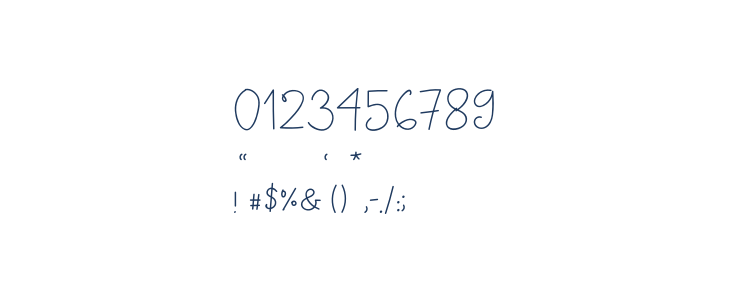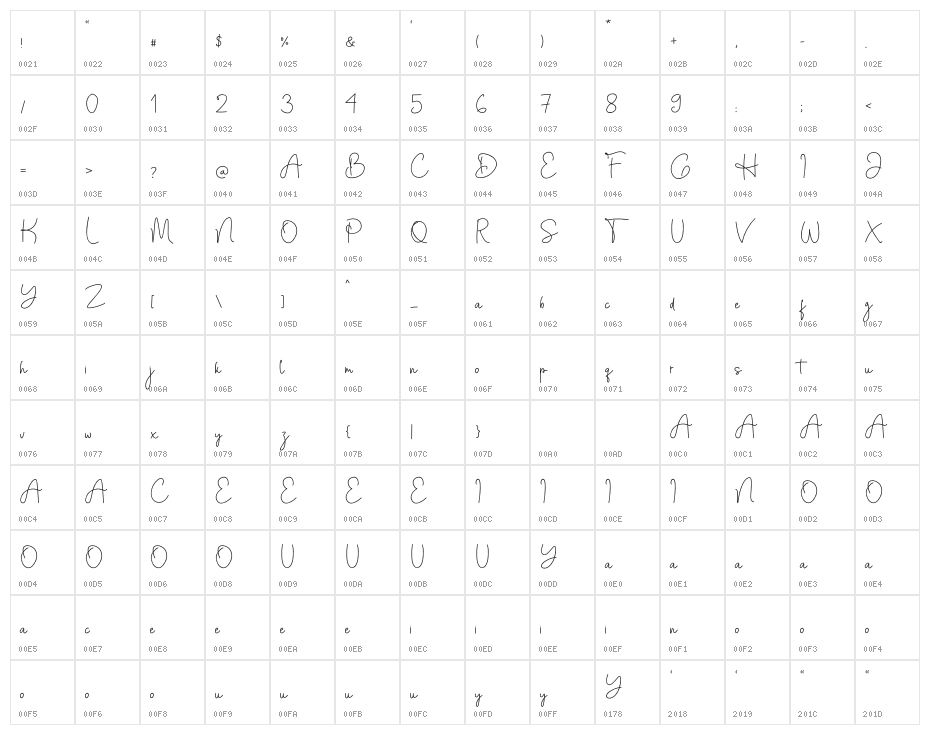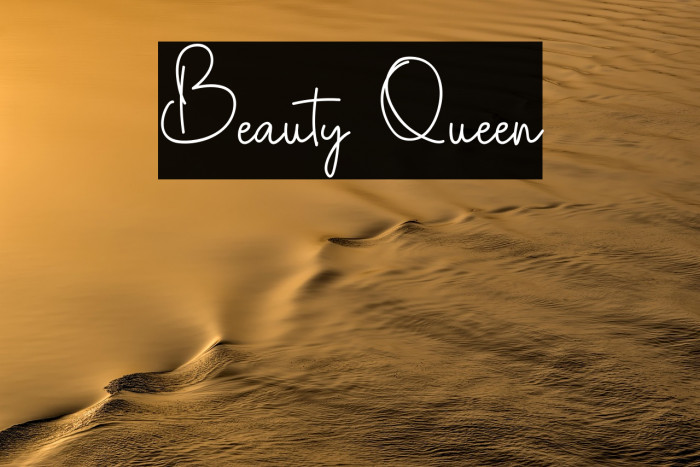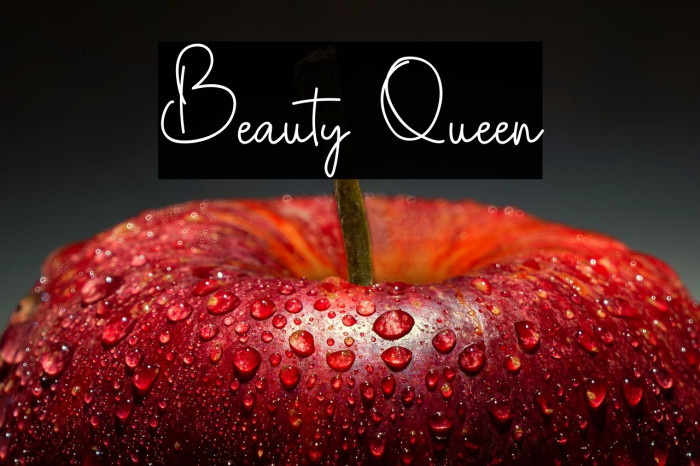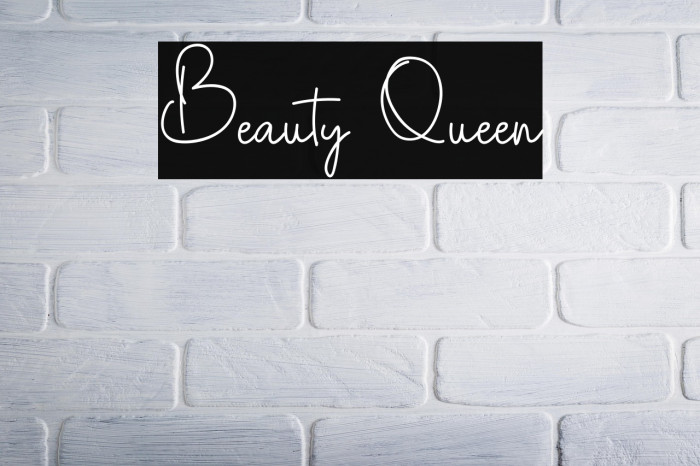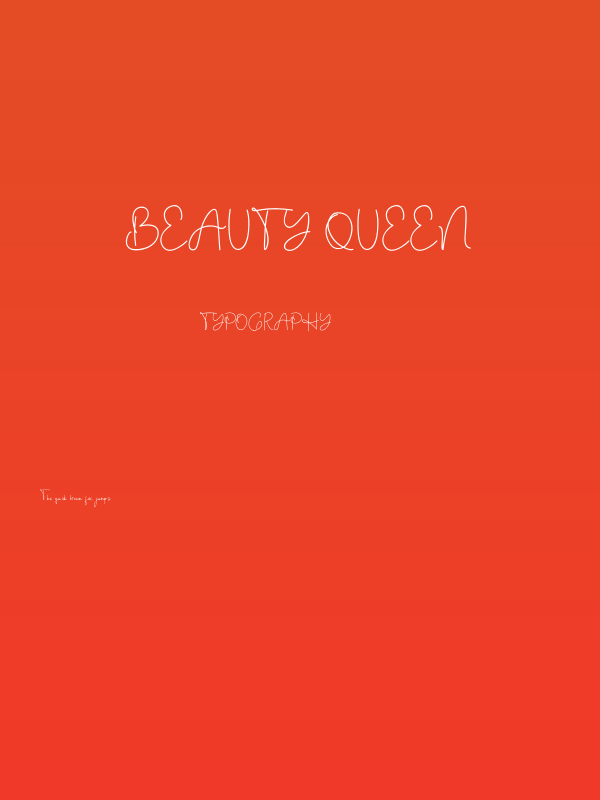
Beauty Queen Font
Beauty Queen Description
This font features a whimsical and elegant handwritten style, characterized by its flowing and interconnected letterforms. The uppercase letters are tall and slender, with a playful loop in some characters, adding a touch of sophistication. The lowercase letters maintain a consistent style, with smooth curves and a slightly irregular baseline that enhances its handwritten appeal. The numerals are clear and easy to read, maintaining the same playful and elegant style. Special characters are well-integrated, complementing the overall aesthetic. This font exudes a sense of creativity and elegance, making it suitable for a variety of design projects.